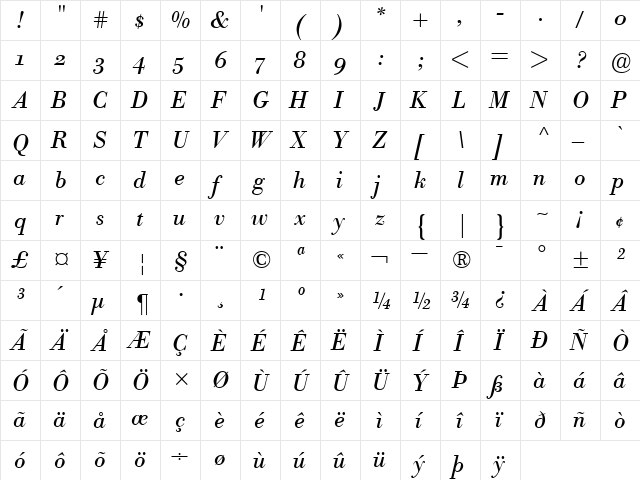
BodoniBEOldstyleFigures RomanItalic Font Preview
BodoniBEOldstyleFigures RomanItalic
Design Context for BodoniBEOldstyleFigures Typeface
BodoniBEOldstyleFigures brings classic typographic sensibility to the table — its serifs and measured letterforms reflect centuries of print heritage. The dynamic lean of this cut emphasises speed and emphasis in any layout.